Jazz, type, and organised chaos: Winthrop students take on LFT Iro Sans
We at TypeTogether are always looking for great collaborations with great people, and Jason Tselentis is exactly that. Besides being a writer for many design magazines, he is an associate professor at Winthrop University. We partnered with him and his senior students to design posters for LFTLoft’s LFT Iro Sans. We provided the fonts and a monetary reward for the winner, and they came back with some great work. Congratulations to the winner, Rachel Ogg, with her Hot Sardines poster, and the other entrants!
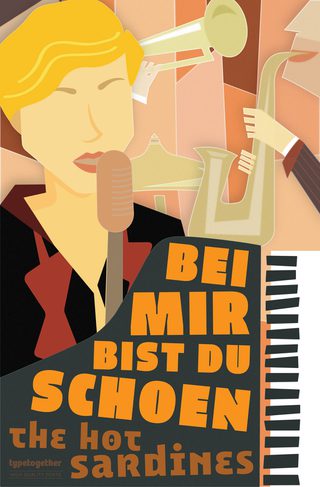
Winning entry by Rachel Ogg.
The brief
Tselentis says, “The senior graphic design students at Winthrop Universitywere faced with the challenge of representing a jazz song or jazz album using typography. How do you evoke a song or a song’s mood? How can poster typebe used expressively? How can a design style create a sense of time and place?”
“With these questions in hand and the LFT Iro Sans typeface, the students used colour, contrast, and weight, among other design principles, to compose their individual jazz posters. Some students solved this challenge purely with typography. Others used type and image to deliver a more illustrative solution.”
Rachel Ogg submitted the winning poster based on the well-known Hot Sardines track, “Bei Mir Bist Du Schoen” and an appropriately-schemed colour palette. Ogg reflected on the process this way. “To me, LFT Iro Sans has a fun and energetic feeling to it; it doesn’t want to be taken too seriously. I wanted to find a song that had similar qualities and ‘Bei Mir Bist Du Schoen’ by The Hot Sardines does just that — it is a fast and upbeat song with playful music and lyrics.”
“I wanted my poster to evoke the qualities of the song,” she continues, “which is why I included a range of instruments, a busy background, and the orange colour scheme. My goal was to create something that looked a bit like organised chaos, which is the feeling I got when listening to the song.”
Instructors and designers know it’s all about the tonal harmony among all the elements. Tselentis summarises, “Typographically, LFT Iro Sans proved to be a more than capable asset, and was just the right type of font for the task.”
Posters by: Kristin Streetman, Savannah Ray, Maria-francesca Massaro-guglielmo, Kelsie Debruhl, Kelsey Benton, and Winner Rachel OGG.